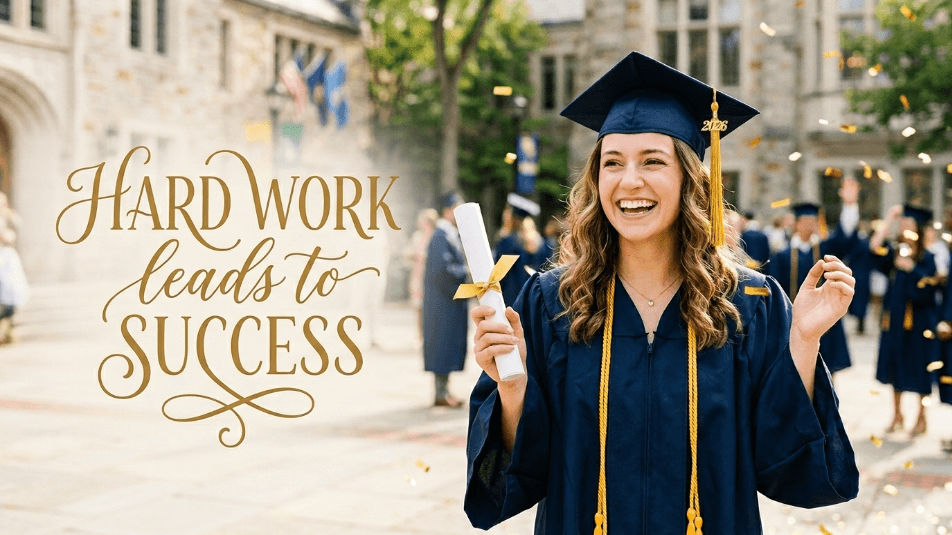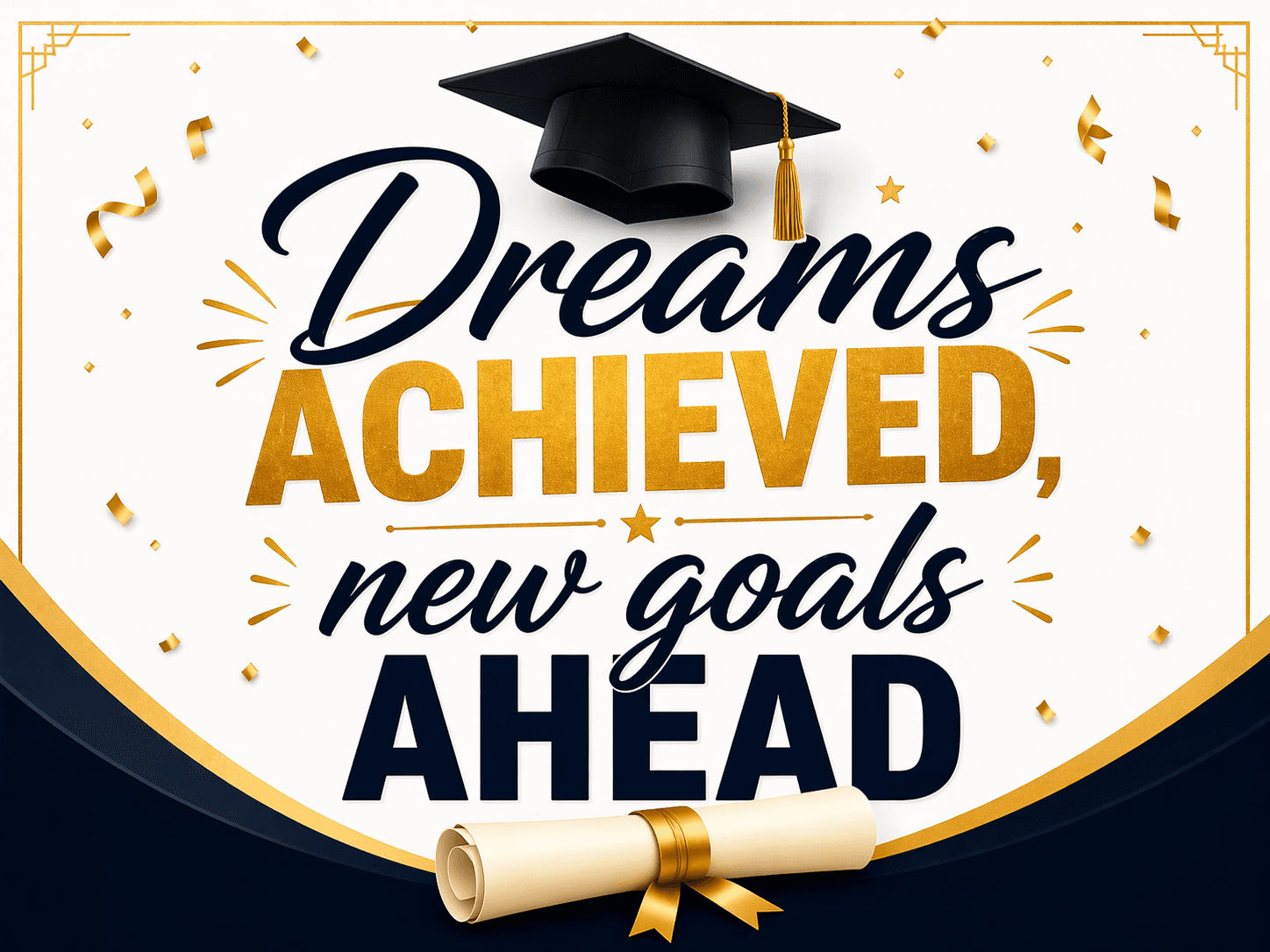
Best 50 Short Graduation Quotes for Powerful Messages
Graduation is a moment of pride, growth, and new beginnings. That’s why many people look for short graduation quotes to express their feelings in a simple yet meaningful way. Whether you are posting on social media or writing a message, the right short graduation quotes can capture your journey perfectly.
In this guide, you’ll find 50 inspiring short graduation quotes along with creative tips and font pairing ideas to make your content stand out. These short graduation quotes are perfect for captions, cards, and celebration posts.
Why Short Graduation Quotes Matter for Social Media
Using simple graduation quotes helps you communicate clearly and emotionally.
• Easy to read
• Perfect for captions
• Strong emotional impact
Well-crafted quotes make your message more memorable.
Best 50 Short Graduation Quotes for Powerful Messages
Here are 50 meaningful simple quotes to inspire your next post:
Success and Achievement Quotes
1. Dreams achieved, new goals ahead
2. Hard work leads to success
3. This is just the beginning
4. Proud of how far I’ve come
5. Success starts now
Motivation and Future Quotes
1. The future is mine to create
2. Keep moving forward
3. Big dreams start small
4. Believe in your journey
5. The best is yet to come
Growth and Journey Quotes
1. Every step was worth it
2. Growth never stops
3. The journey made me stronger
4. Learning never ends
5. Progress is powerful
Simple and Minimal Quotes
1. Finally made it
2. One chapter closed
3. On to the next
4. New beginnings start today
5. Mission accomplished
Inspirational Graduation Quotes
1. Chase your dreams
2. Stay focused, stay strong
3. You did it
4. Make it happen
5. Keep going
Self Pride Quotes
1. Proud of this moment
2. Hard work paid off
3. I believed in myself
4. This is my time
5. Celebrate the journey
Positive Energy Quotes
1. Stay positive always
2. Good things take time
3. Keep shining
4. Trust the process
5. Stay inspired
Dream and Vision Quotes
1. Dream big always
2. Your story starts now
3. Create your future
4. Go beyond limits
5. Make it count
Short Caption Style Quotes
1. Next chapter begins
2. Just getting started
3. Growth mode on
4. Future loading
5. Level up
Powerful Closing Quotes
1. This is my moment
2. Success feels good
3. Ready for more
4. The journey continues
5. On to greatness
Font Pairing Ideas for Short Graduation Quotes
Design plays a big role in presenting simple quotes effectively. Clean typography and strong pairing can make your quotes more engaging. Here are font pairing ideas inspired by DM Letter Studio to enhance your simple graduation quotes:
1. Script + Clean Sans (Elegant and Proud Feel)
Primary Font: Clairmont Script style
Secondary Font: Modern sans serif like ROSA
Effect:
Creates a celebratory and premium look, perfect for emotional quotes.
Best for:
• Graduation cards
• Instagram captions
• Personal branding
2. Bold Display + Simple Sans (Strong and Confident Style)
Primary Font: Bold display font like Blockton Varsity
Secondary Font: Neutral sans serif like Cozy Stroke
Effect:
Gives a confident and powerful tone, ideal for motivational quotes.
Best for:
• Posters
• Social media highlights
• Announcement posts
3. Handwritten + Clean Sans (Personal and Authentic Look)
Primary Font: Artsy
Secondary Font: Clean sans serif like Honeyquill
Effect:
Adds a personal and relatable feel, making your quotes more emotional.
Best for:
• Journaling
• Lifestyle posts
• Story content
4. Serif + Minimal Sans (Classic and Professional Style)
Primary Font: Elegant serif like Florynthia Monogram
Secondary Font: Thin sans serif like ROSA
Effect:
Creates a timeless and polished design, ideal for formal quotes.
Best for:
• Invitations
• Editorial design
• Certificates
5. Playful Display + Simple Sans (Fun and Youthful Style)
Primary Font: Baby Tulips
Secondary Font: Simple sans serif like Trevor